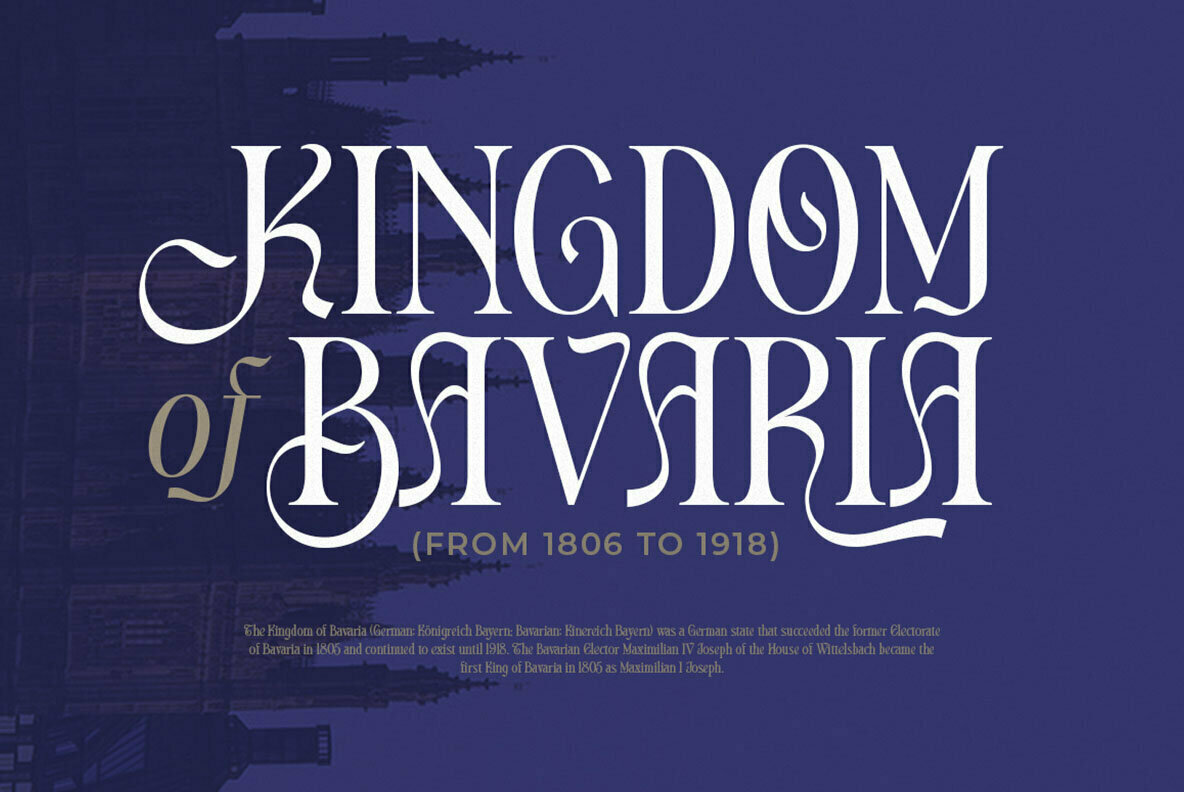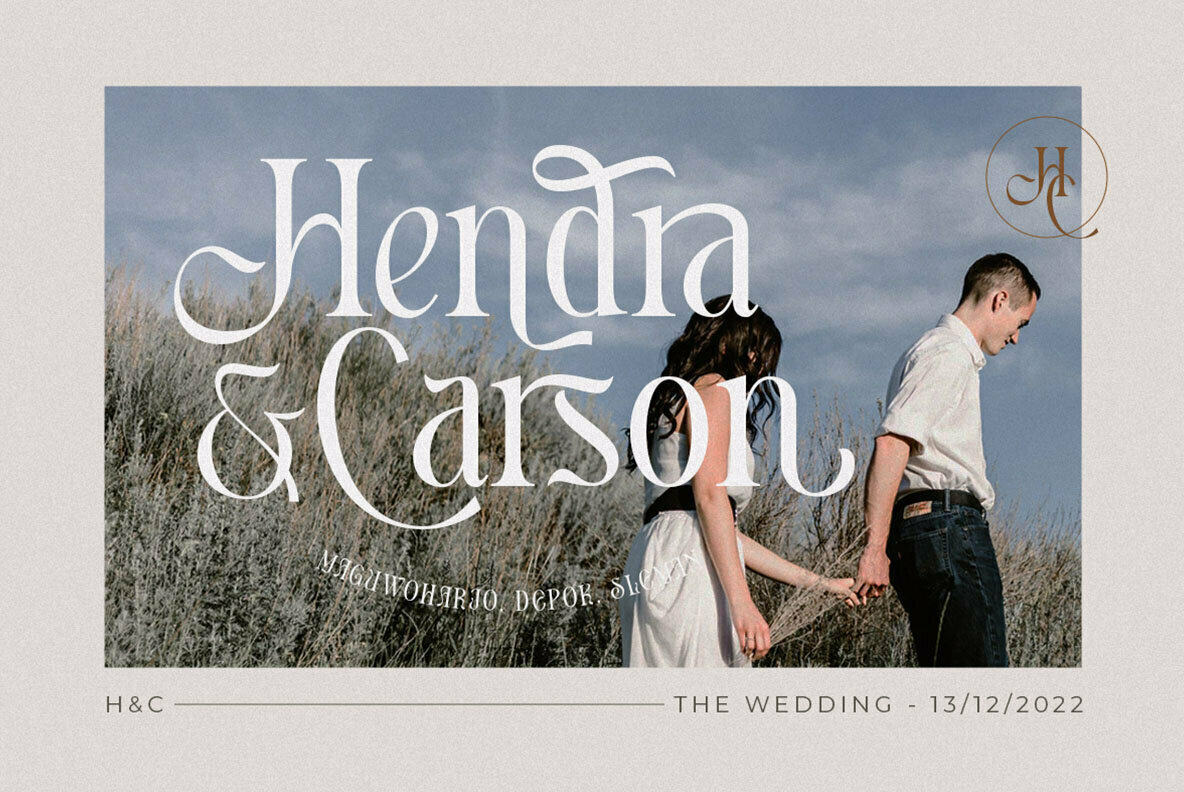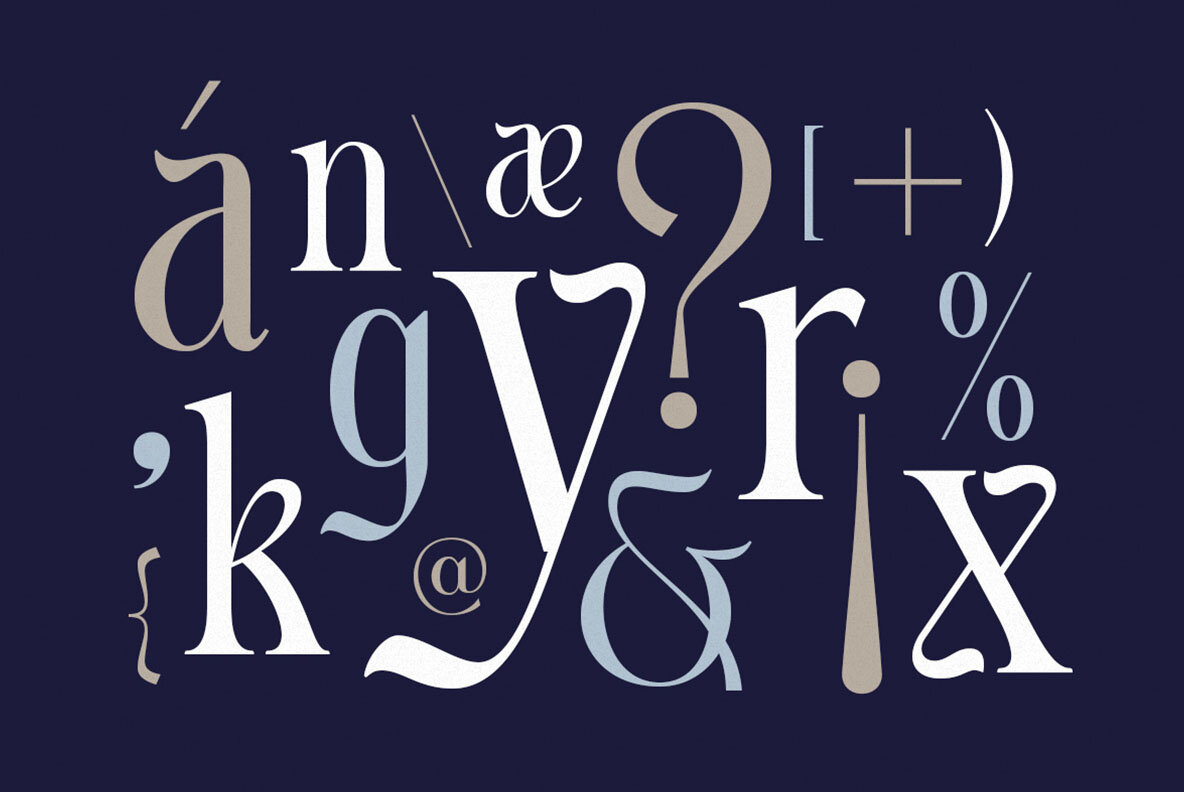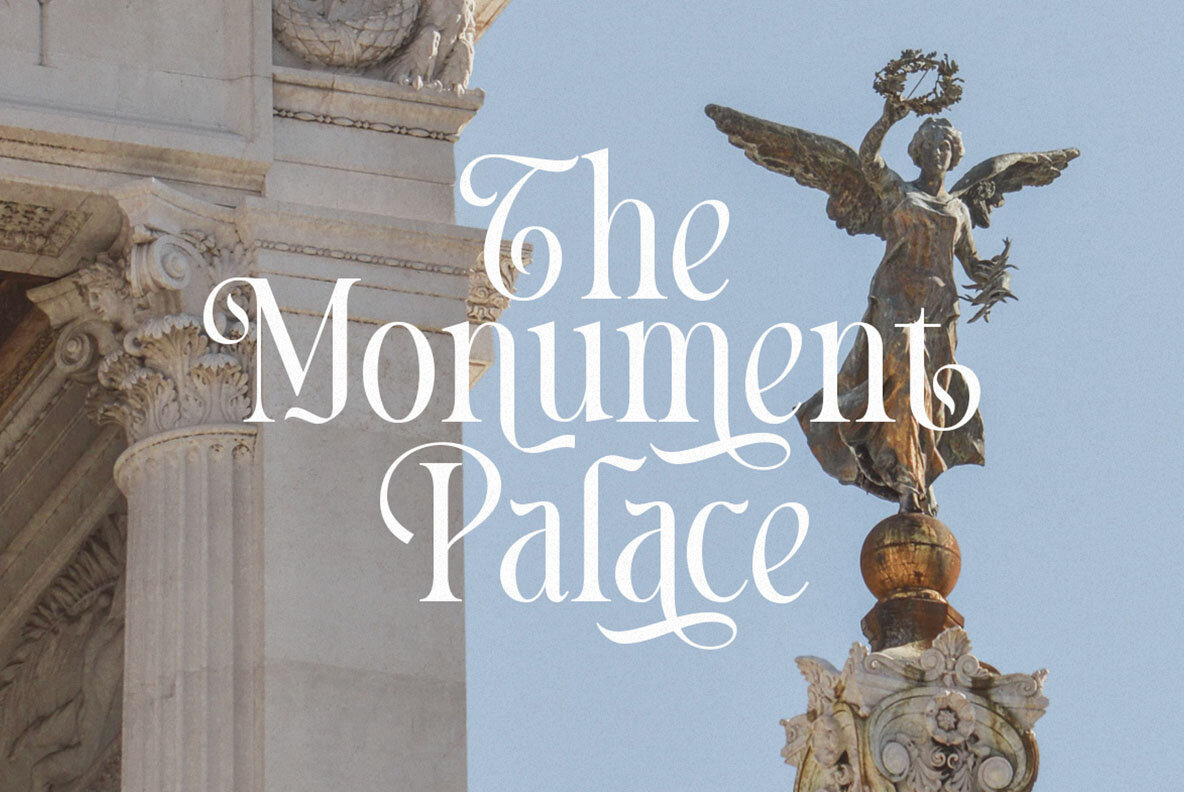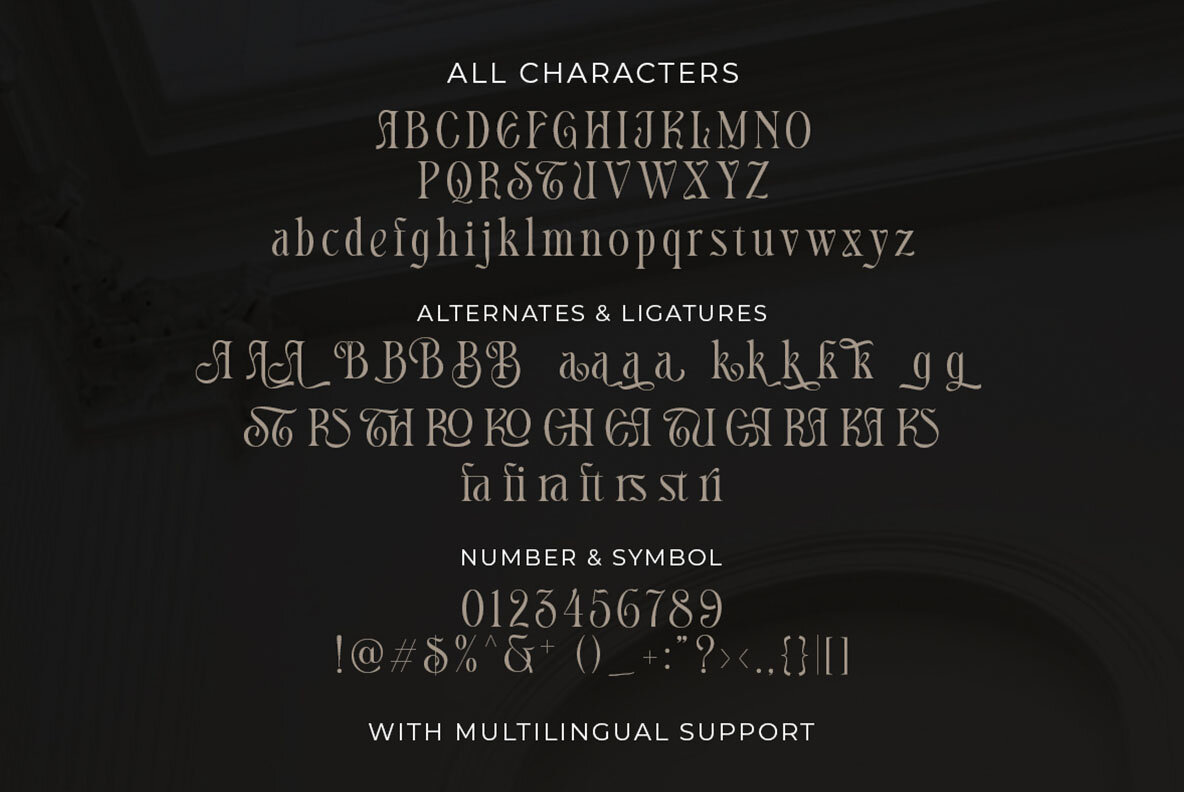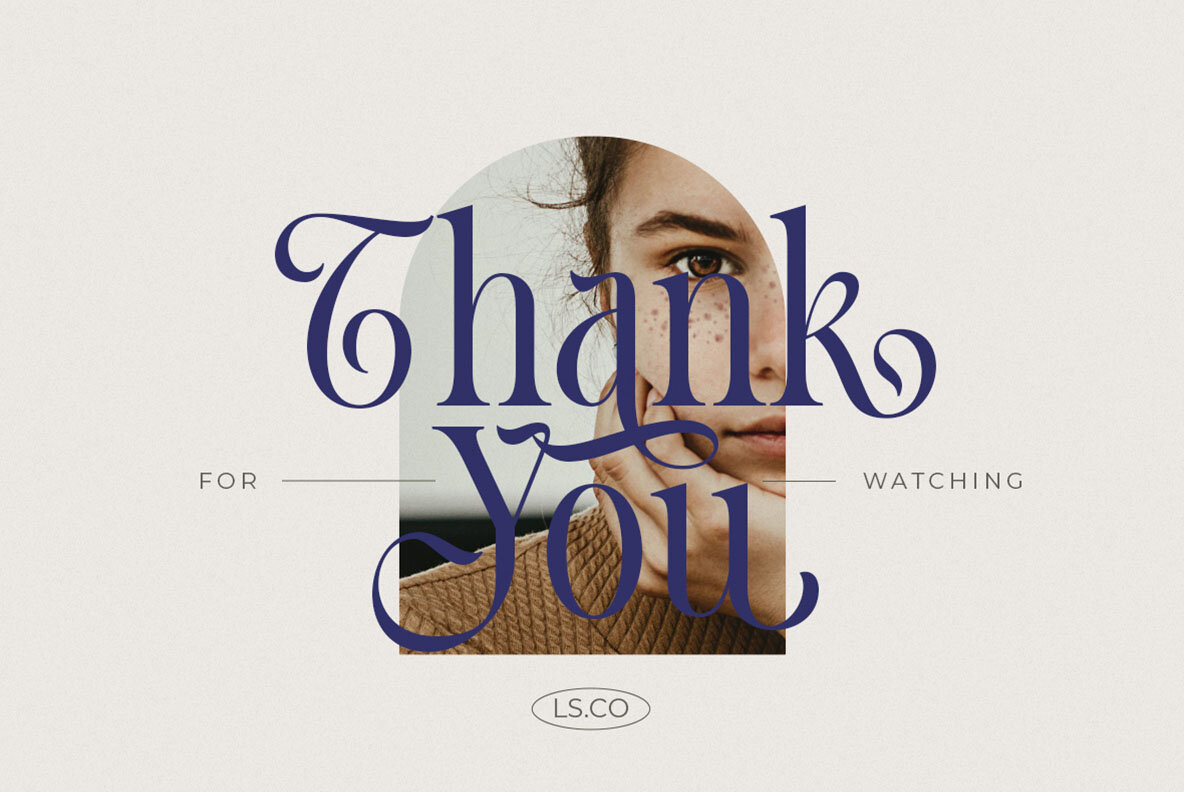
Appears Font
Appears Regular
Appears by Letterhend Studio captures the essence of modernity with its sleek and sophisticated letterforms. This display serif font serves as an excellent choice for contemporary and minimalistic design themes, offering a refined aesthetic that enhances visual appeal. Its stylistic alternates and ligatures add a distinctive character, ensuring your projects stand out. Perfectly suited for an array of applications, Appears is ideal for logos, formal invitations, and a variety of print formats, including magazines, books, greeting and wedding cards. Its adaptability extends to packaging, fashion, stationery, novels, and diverse advertising purposes, offering elegance in every stroke. For the best experience, employ software that supports OpenType features and Glyphs panels, such as Adobe applications and Corel Draw, to explore the full range of glyph variations available in this font.Appears: Sleek Display Serif Font for Refined Designs